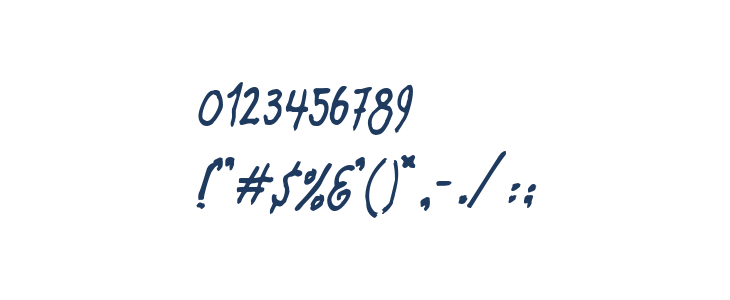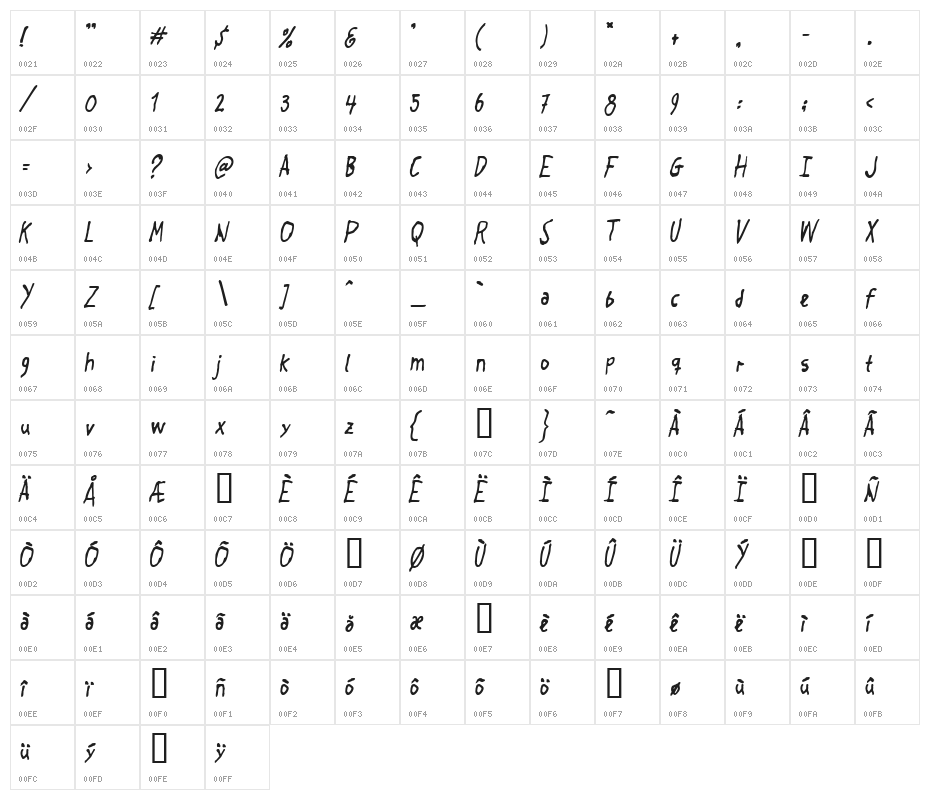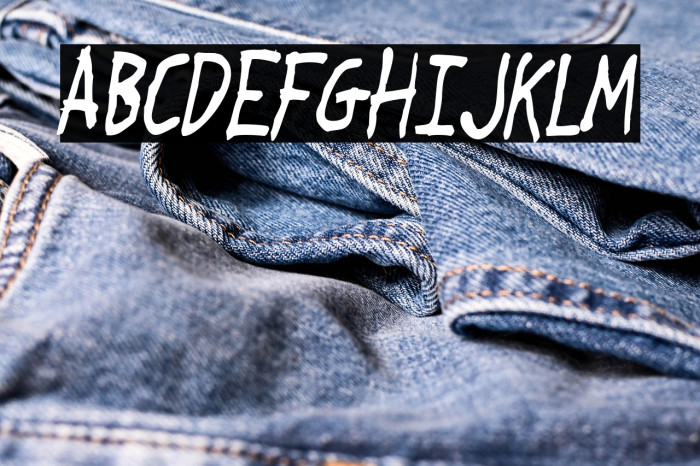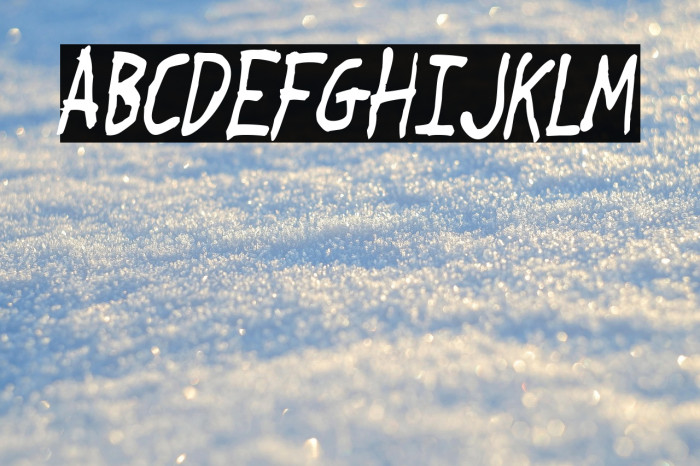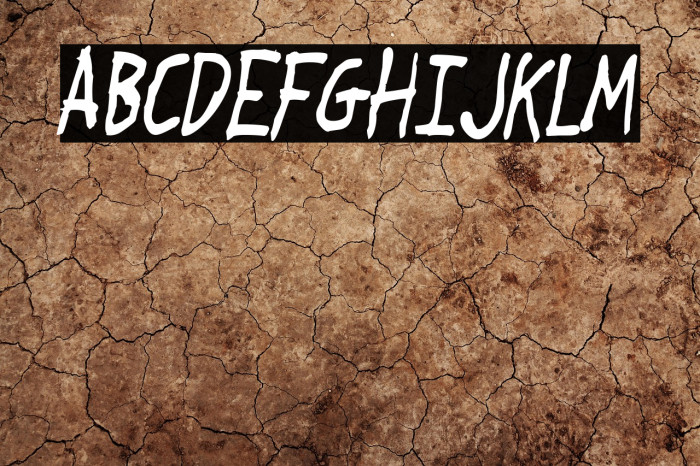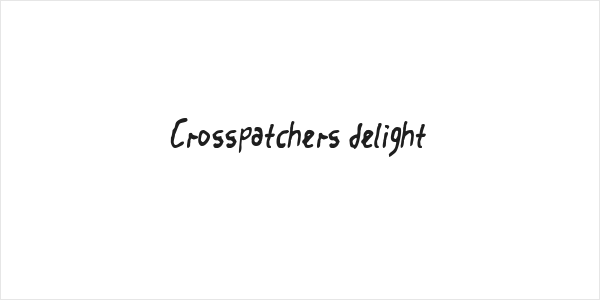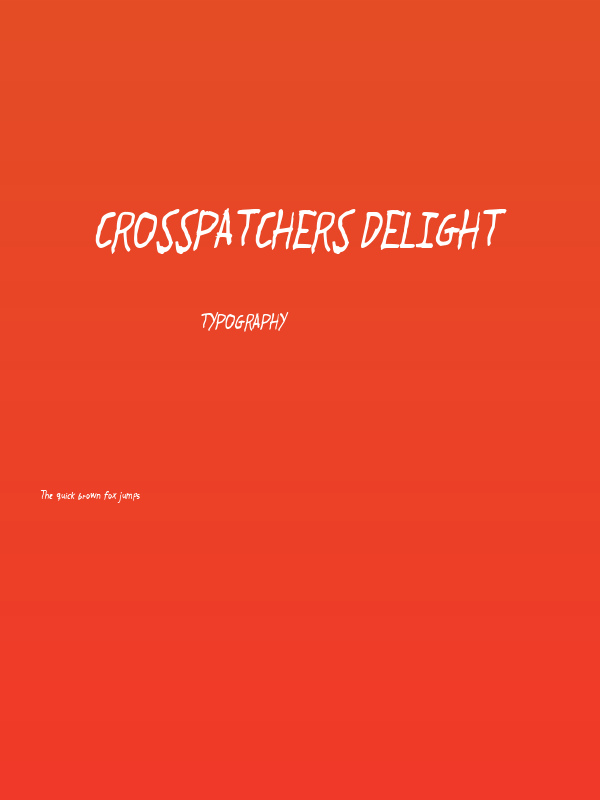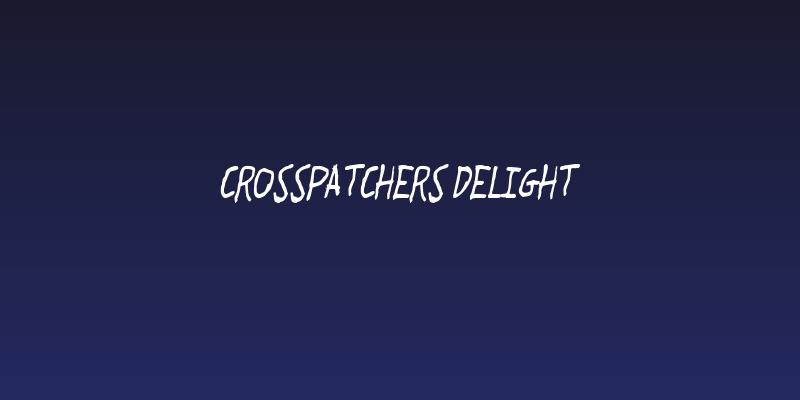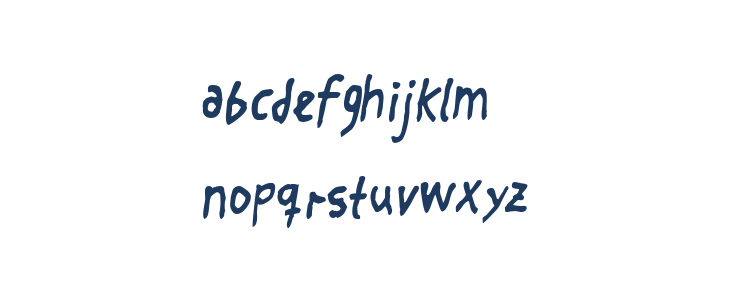
Crosspatchers delight Font
Crosspatchers delight Description
This font features a playful and informal handwritten style, characterized by its irregular strokes and slightly tilted letters. The uppercase letters are bold and prominent, while the lowercase letters maintain a consistent flow with a casual appearance. The numerals are distinct and easy to read, matching the overall quirky aesthetic. Special characters are creatively designed, adding to the font's unique charm. The font's overall appearance is reminiscent of a personal note or a casual invitation, making it ideal for projects that require a touch of personality and warmth.